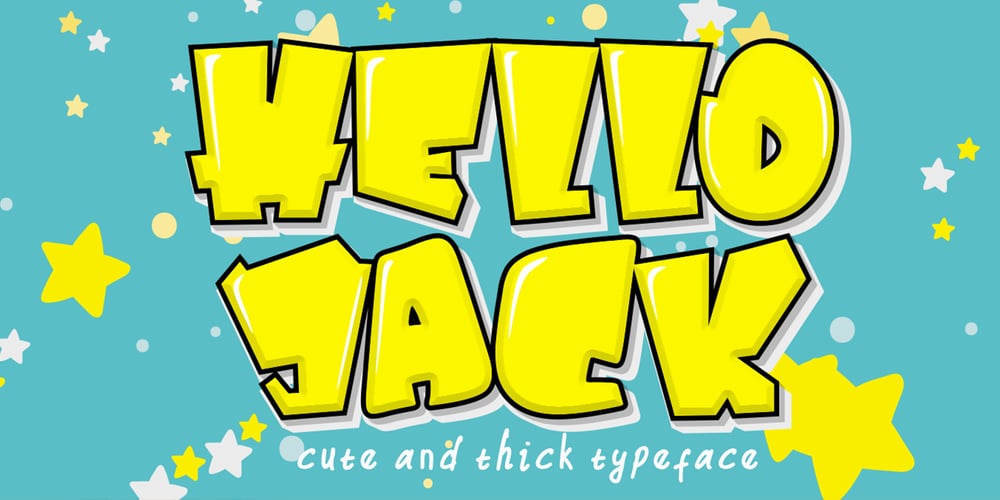
Hello Jack Font Family was designed by Sipanji and published by Sipanji21. Hello Jack contains 1 styles and family package options. Hallo Jack is a funny, bold and cute display font with a sharp corner. Get inspired by its unique feel, and turn to add a lovely charm to any crafts project, this font suitable for any project about kids, children, or Student, like, book Cover, kids shirt, baby shower poster, and etc.